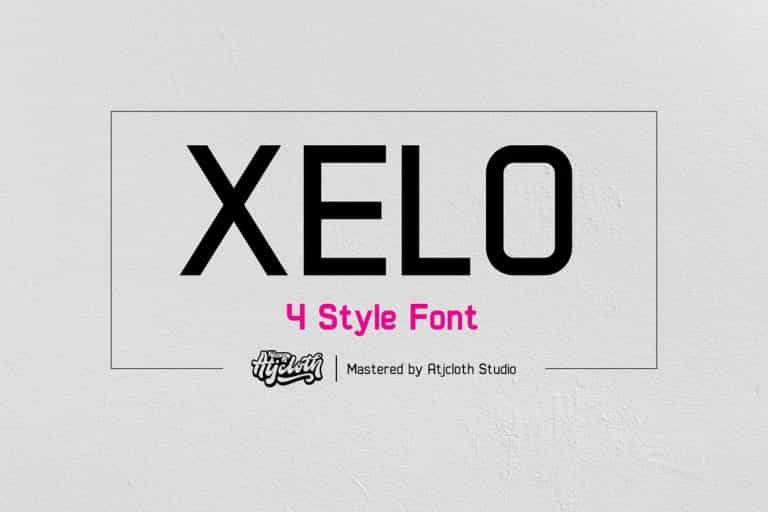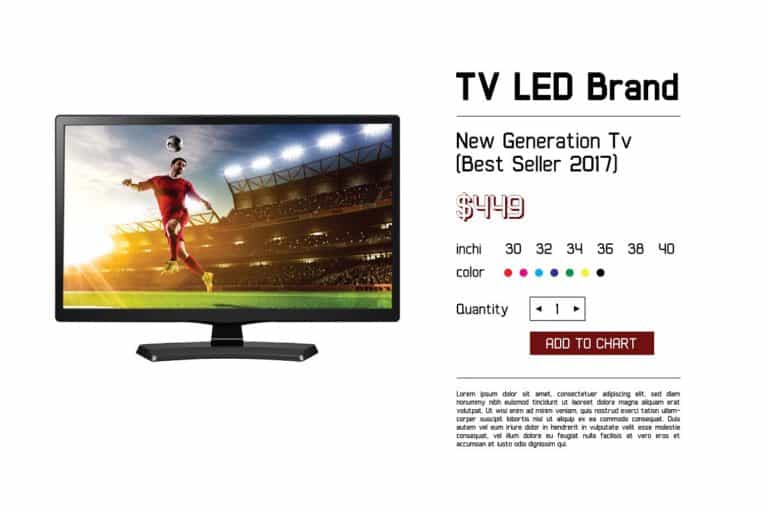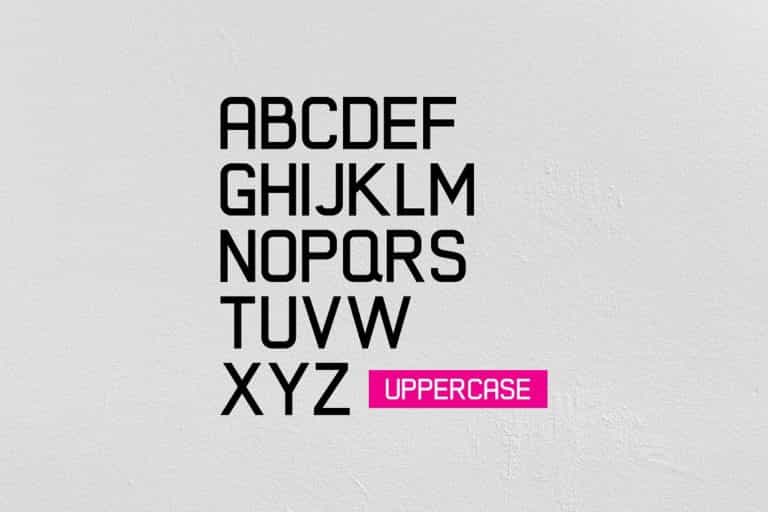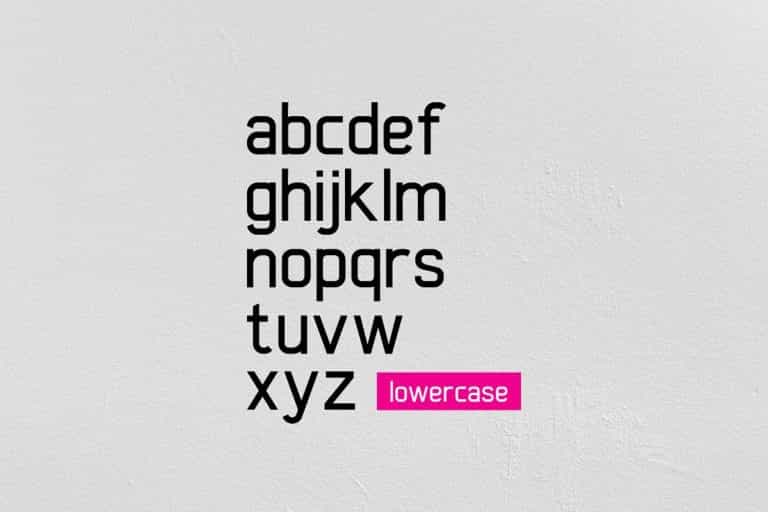
Xelo is a beautiful sans serif font that will quickly become a modern and classic typeface in your design. The application was intended to assist in labeling, logo design, clothing line advertisement or designer’s portfolio cover and even movie title.